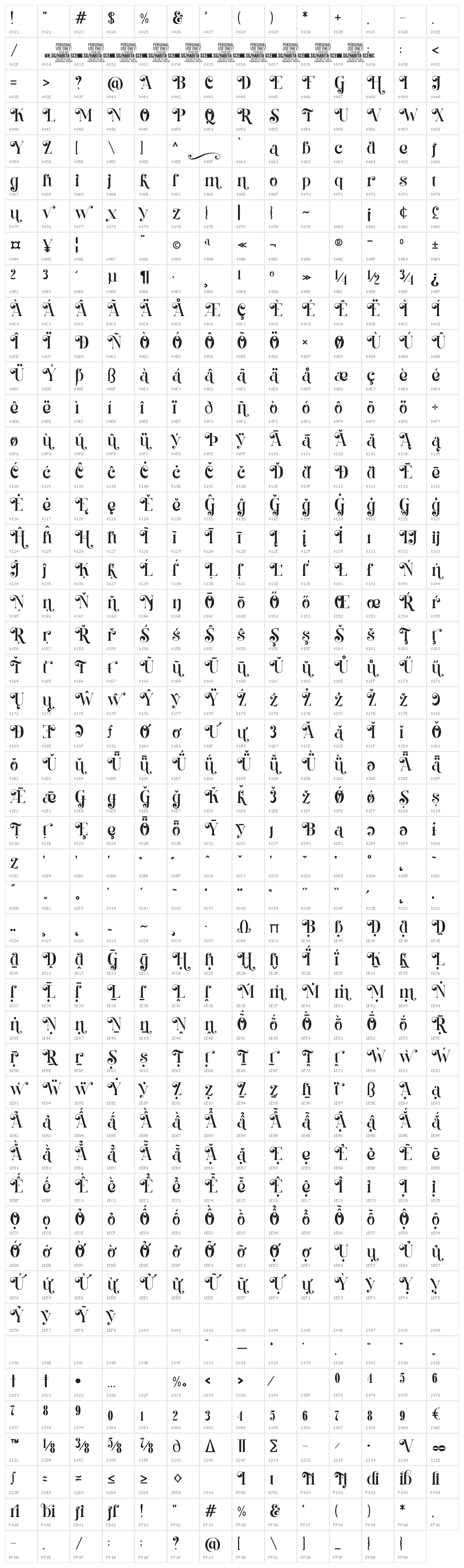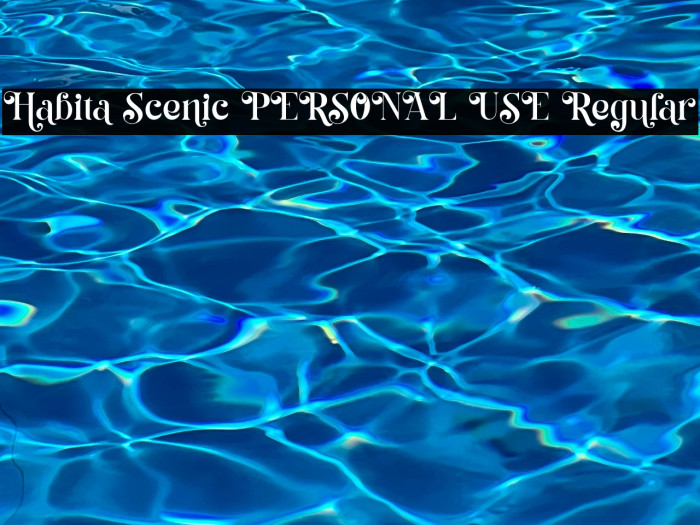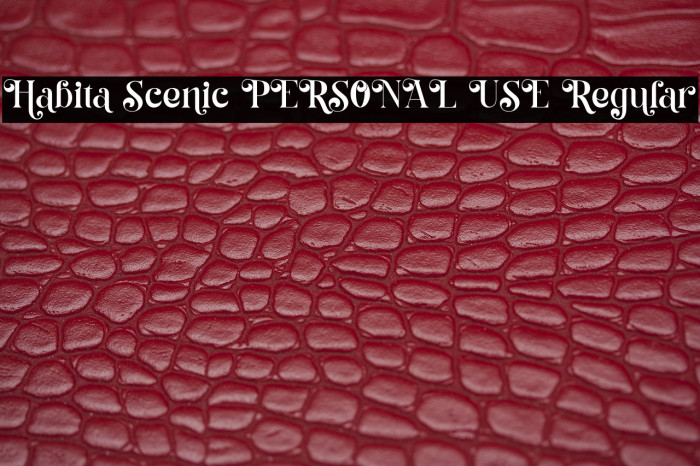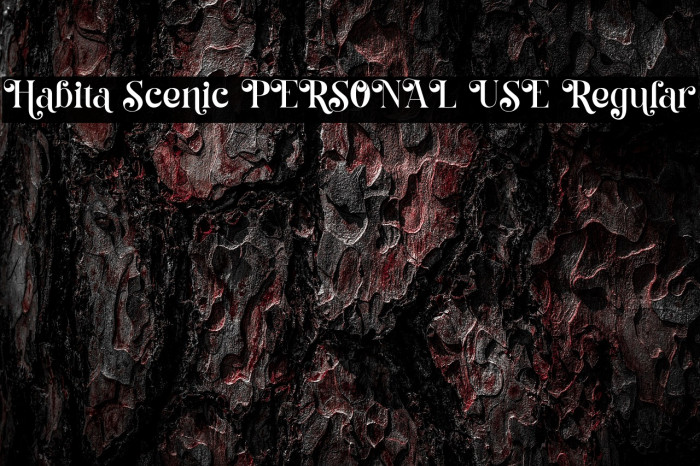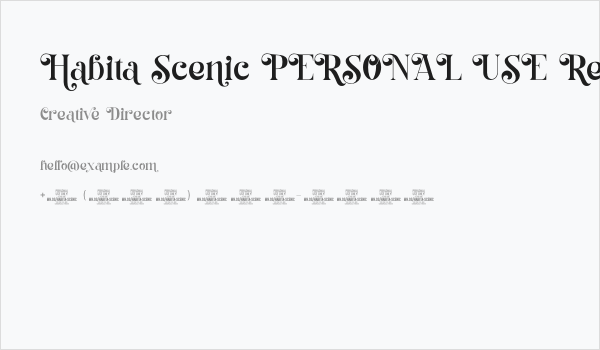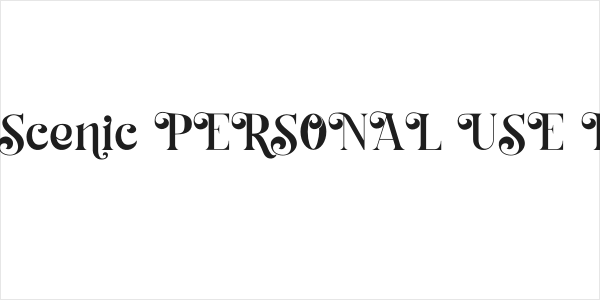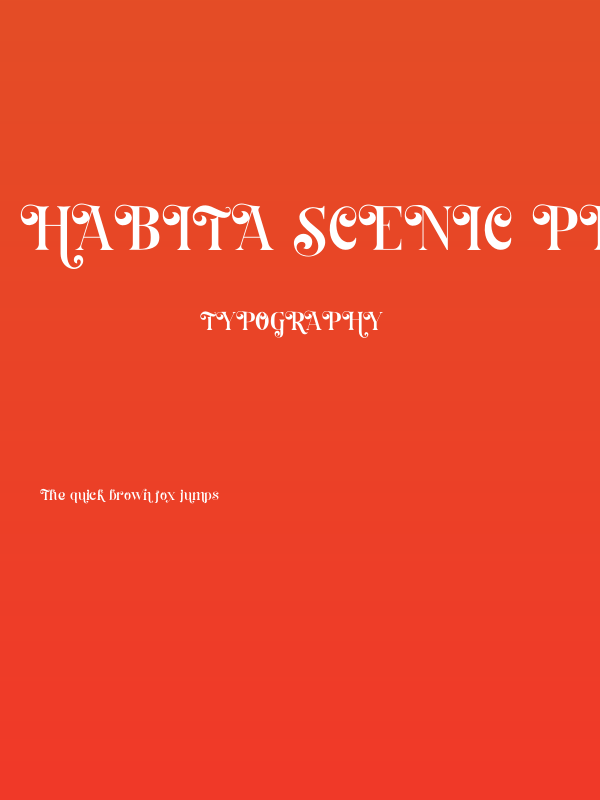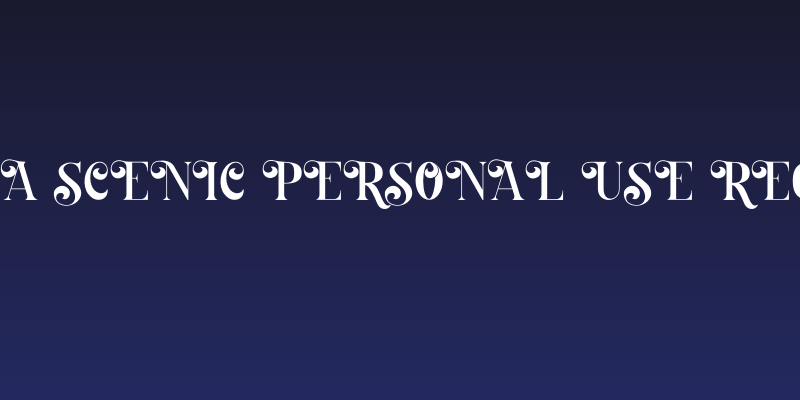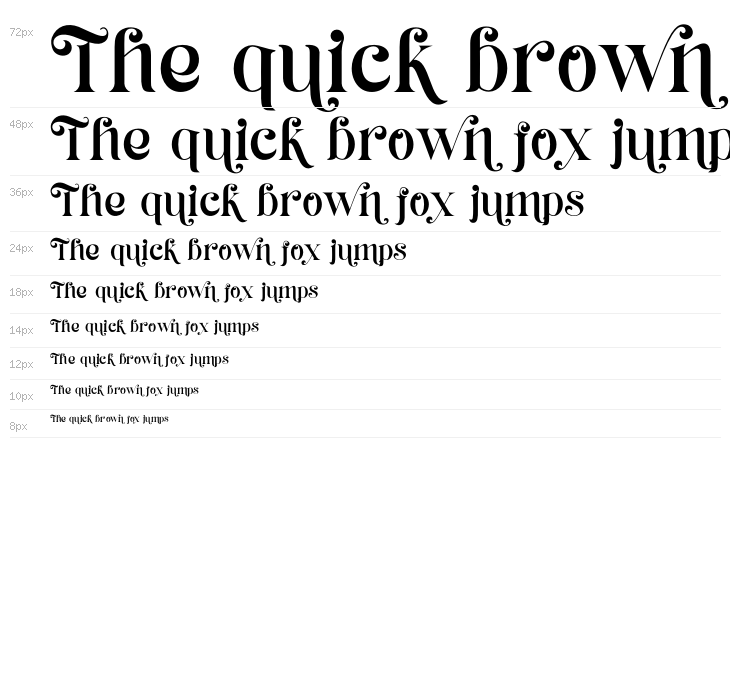
Habita Scenic PERSONAL USE Regular Font
Habita Scenic PERSONAL USE Regular Description
This font features a decorative and whimsical style, characterized by its unique and playful curves. The uppercase letters are bold and dramatic, with intricate swirls and flourishes that add a sense of elegance and creativity. The lowercase letters maintain a consistent style, offering a harmonious blend of traditional serif elements with a modern twist. The numerals and special characters follow the same ornate design, making the font suitable for projects that require a touch of sophistication and flair. The overall appearance is both artistic and functional, making it ideal for eye-catching designs.
| Proposed Projects | Ideal for wedding invitations, branding, logos, and artistic posters. |